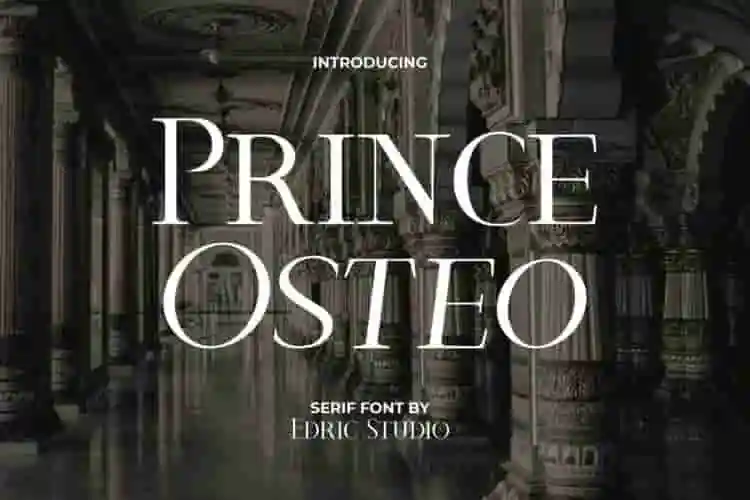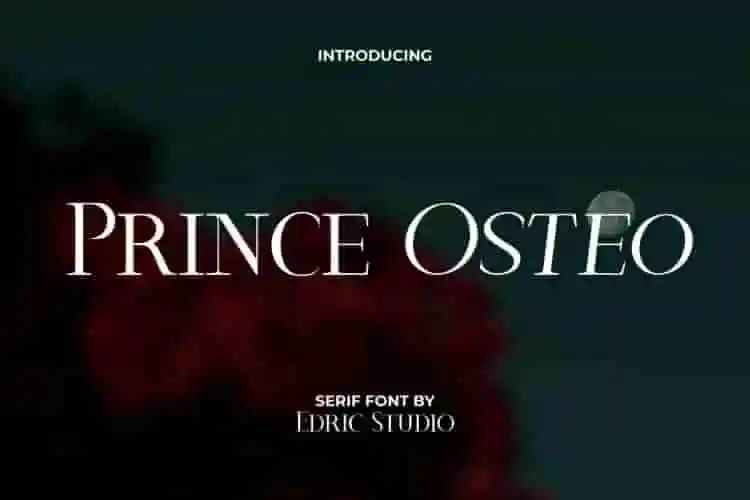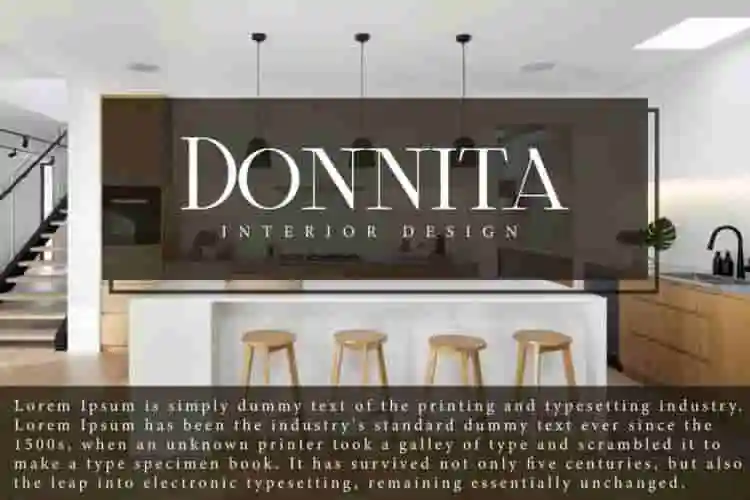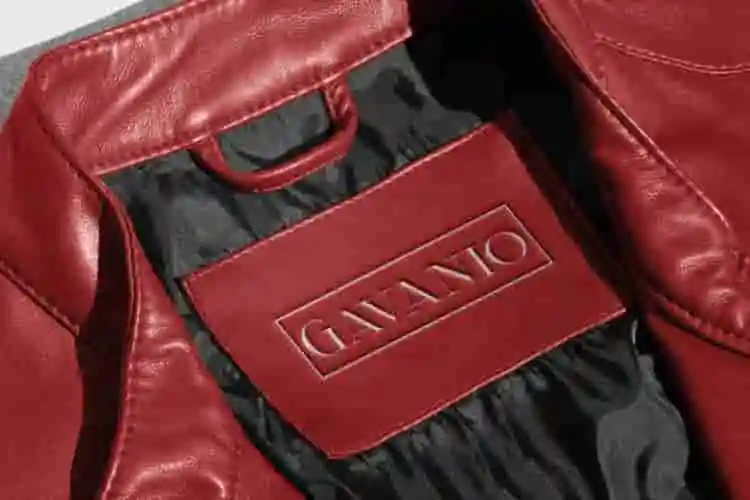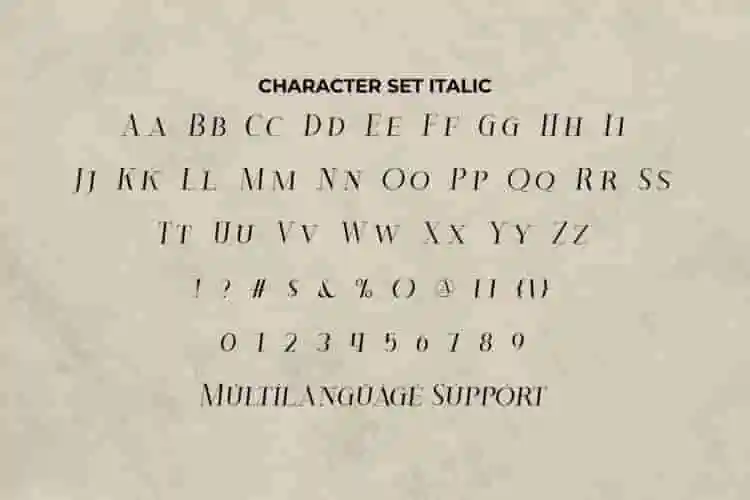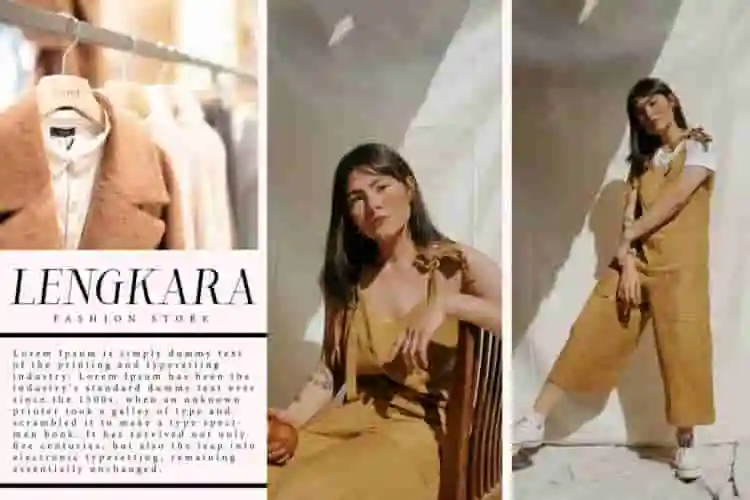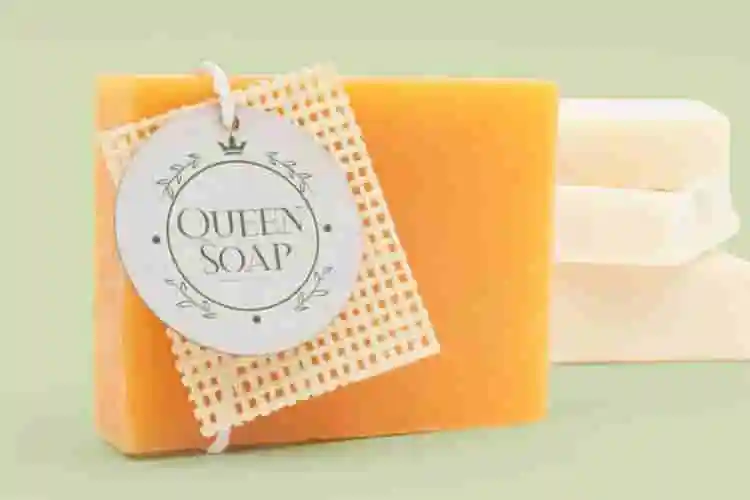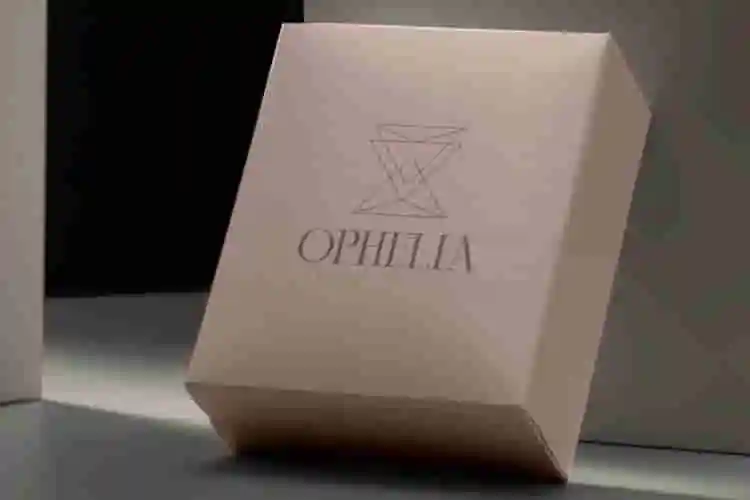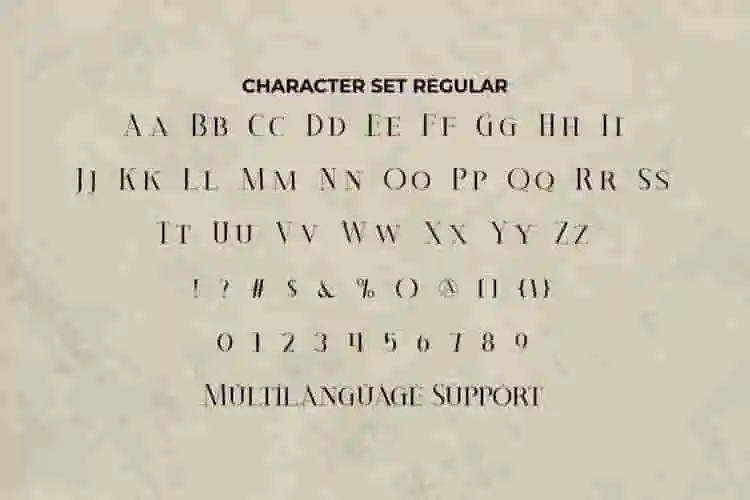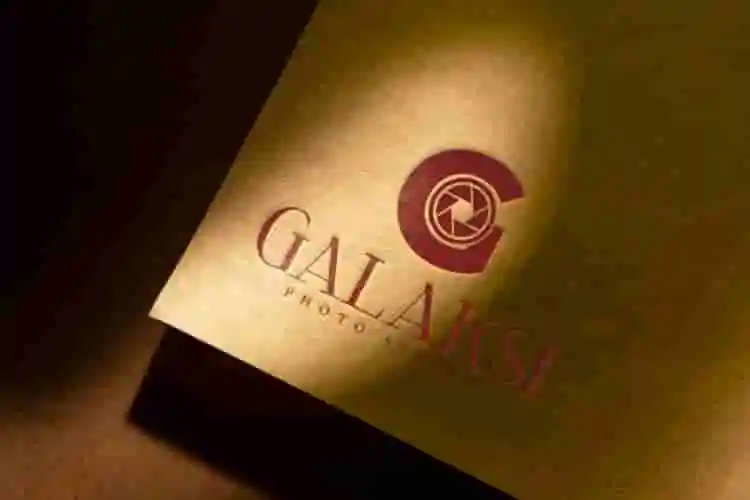
Prince Osteo Font is a casual Sans serif font with a classy vibe, designed by EdricStudio. This font combines classic and modern looks which will be great for any industry, including : boutique, exhibition, fashion brand, furniture, homeware, interior design, jewelry, real estate, restaurant, retail, photography, and anything that requires a fashionable serif look.
Prince Osteo Font comes with ALL CAPS and has different sizes between Uppercase and Lowercase Characters, Number, large range of Punctuation and Symbol. This font comes with two stunning styles, Regular and Italic. Prince Osteo Font will be great for any projects (with extended license) including : body text, brand logo, catalog, header, label, stationery, sticker, website, etc.
Introducing Prince Osteo, a clean and versatile sans serif font designed to bring clarity, confidence, and modern elegance to your creative work. With sleek lines and balanced proportions, it’s the perfect typeface for professional and contemporary design.
Whether you’re crafting brand identities, corporate presentations, packaging, or digital interfaces, Prince Osteo Sans Serif Font offers a minimalist aesthetic that’s both timeless and functional. It’s built to ensure readability without sacrificing visual appeal.
- Full set of uppercase & lowercase letters